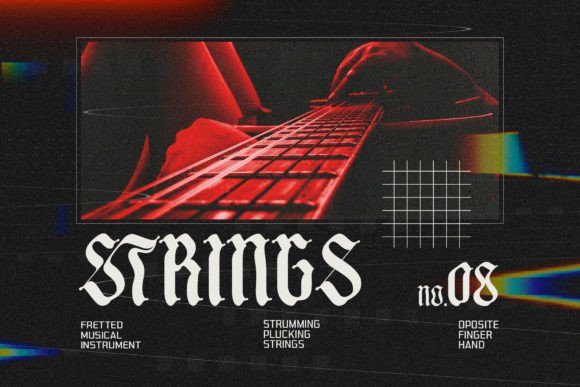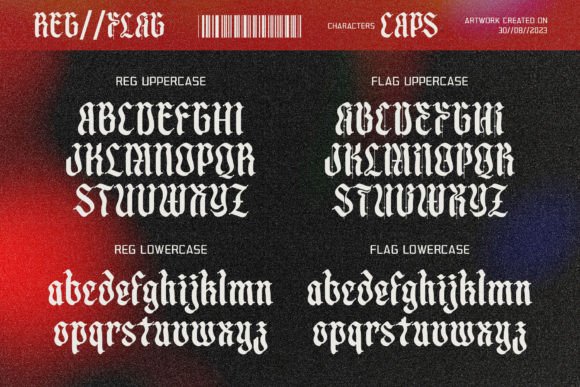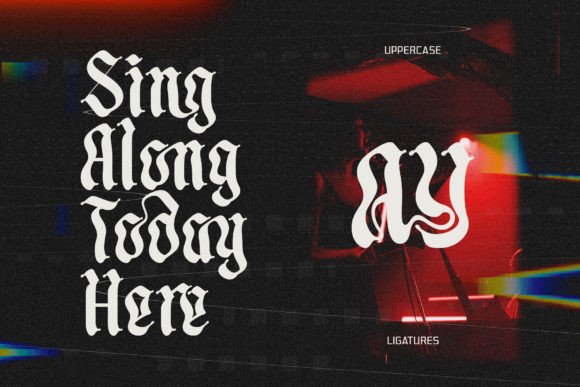
Introduction to Metal Soup Font
β€œMetal Soup” is a captivating blackletter font that exudes a unique blend of boldness and a dynamic, distressed aesthetic.
With its robust design, this font is perfect for making a striking statement in your design projects β€œMetal Soup” features a classic blackletter design, characterized by its sharp, angular lines and ornate details, giving your text a Gothic, medieval feel.
Key Features of Metal Soup Font
Why Choose Metal Soup Font?